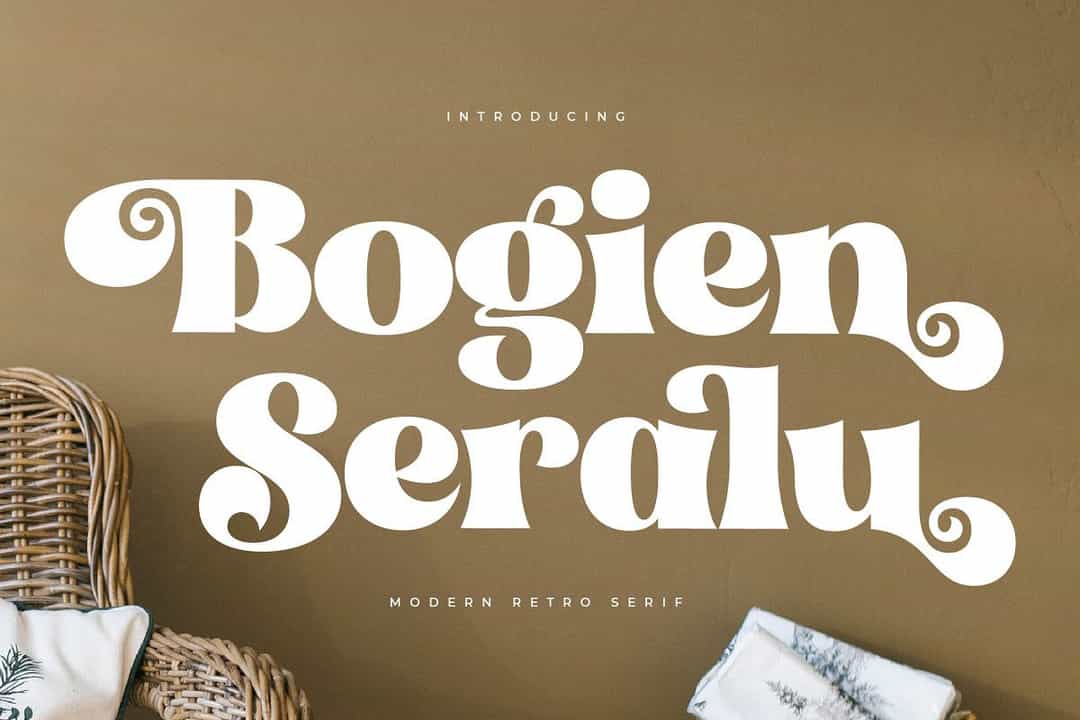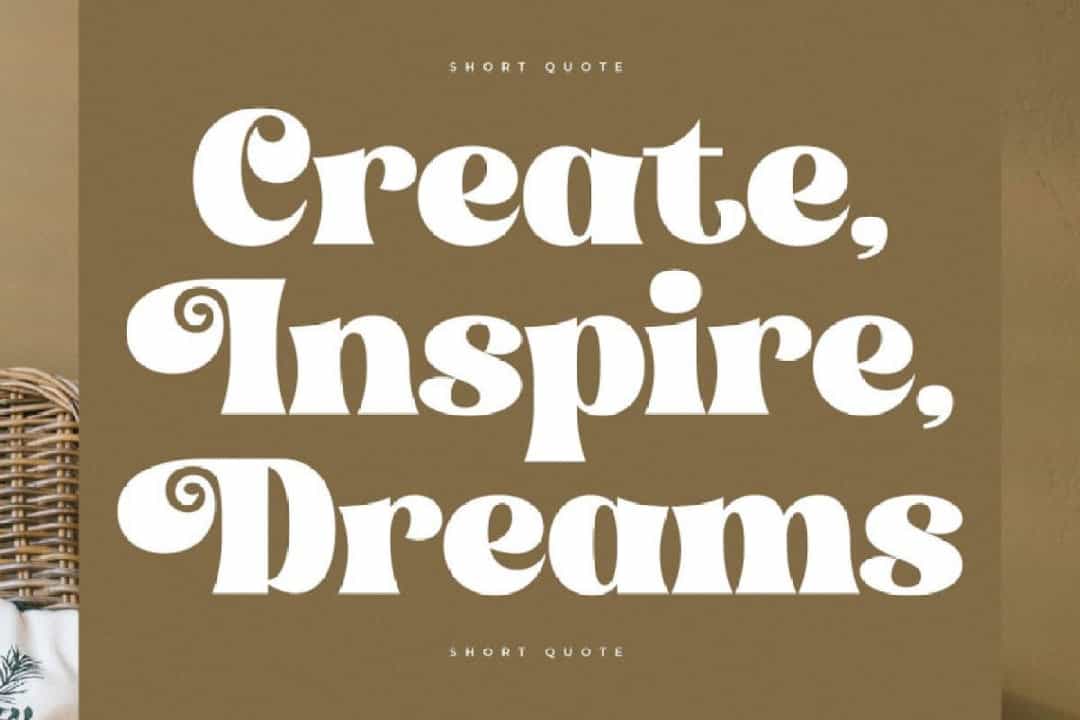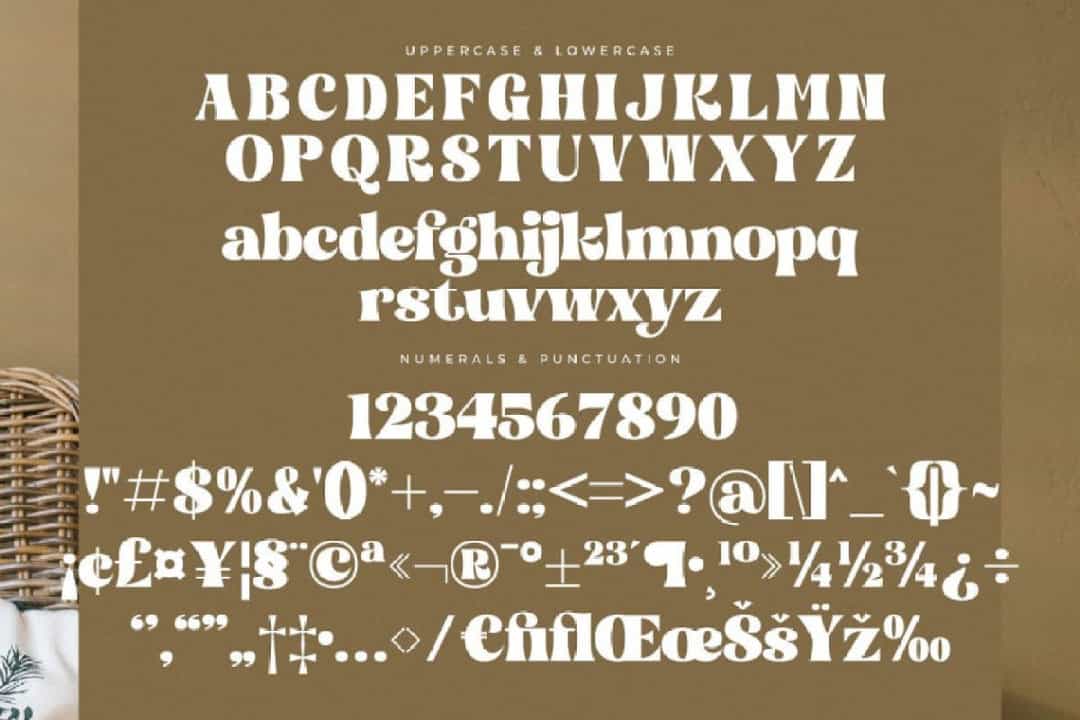
Bogien Seralu can be described as an elegant vintage serif typeface that blends contemporary flair. With its balanced proportions and crisp lines, this font makes an excellent choice for editorial designs, branding projects or logos – elevating any project with class and sophistication.